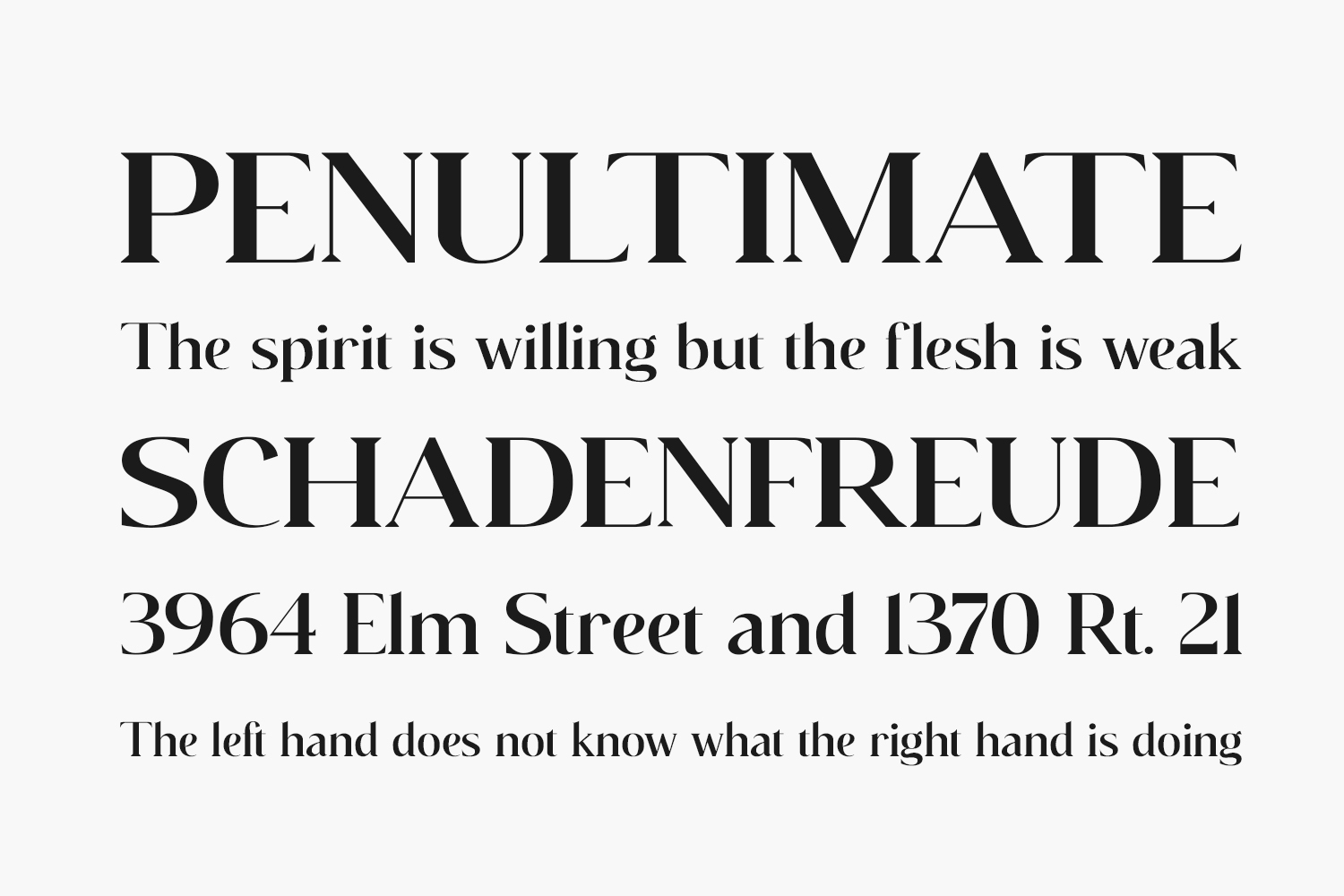
Walkester Free Font is a spectacular duo font (serif and script). Incredibly versatile, this font fits a wide pool of designs, elevating them to the highest levels. Walkester Free Font was designed by BrandSemut and is free for personal use only. Please purchase the full version for commercial use.
Designed by BrandSemut